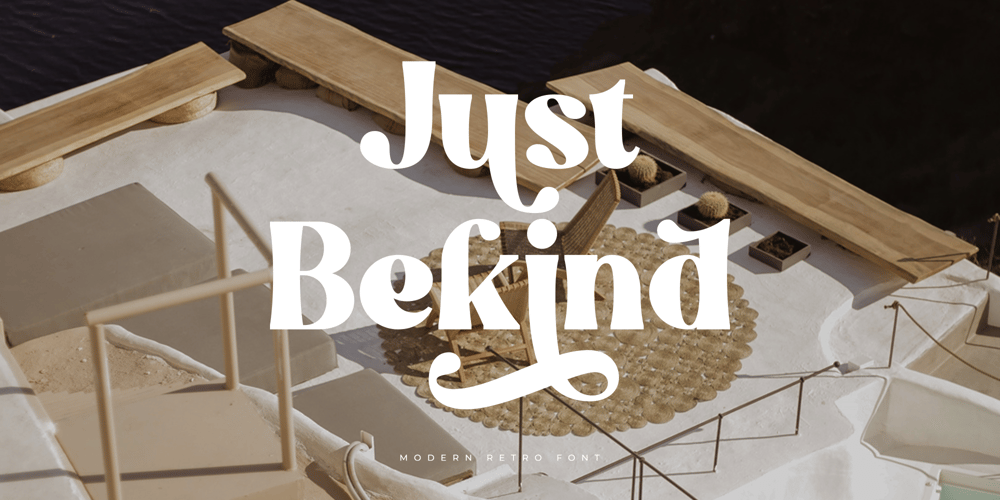
Just Bekind
Just Bekind font
Just Bekind Font Family was designed by Revo Farsiky and published by Pen Culture. Just Bekind contains 1 styles and family package options. Proudly present “Bekind – Modern & Retro Font”Bekind is a modern & retro serif that perfect for branding, logo design, embroidery project, cricut, and many others. This font come with awesome uppercase and lowercase, number and punctuation, and lovely alternate.I really hope you enjoy it – please do let me know what you think, comments & likes are always hugely welcomed and appreciated. More importantly, please don’t hesitate to drop me a message if you have any issues or queries.Thank you